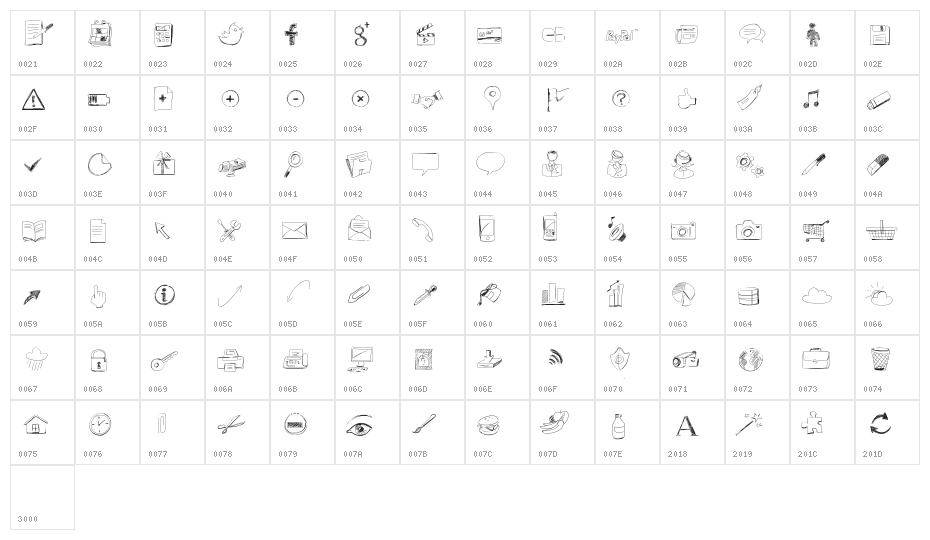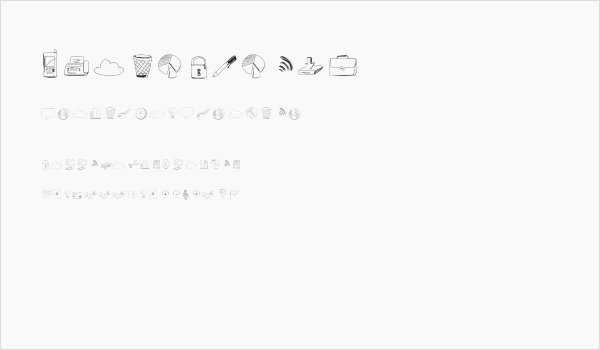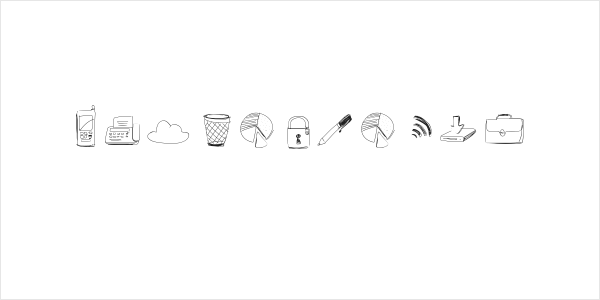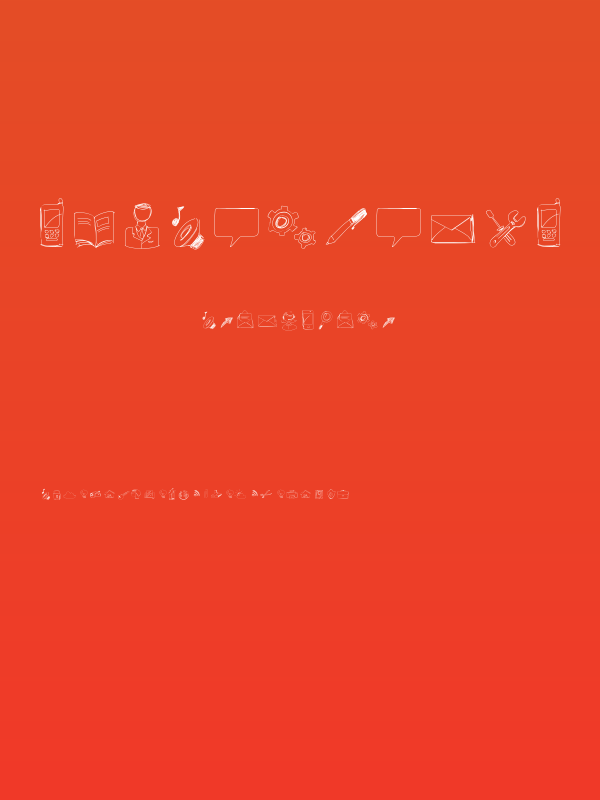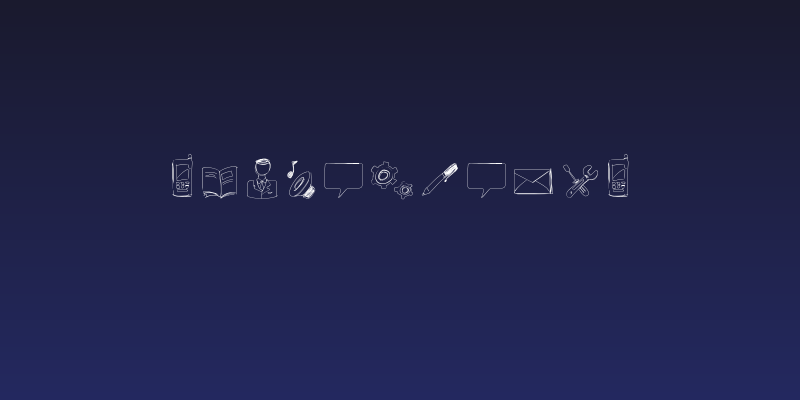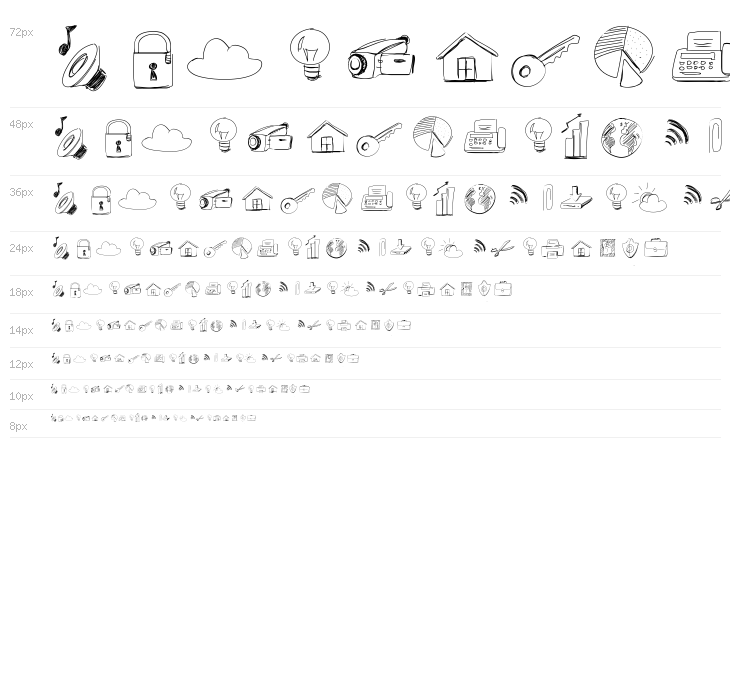
SketchIcons Font
SketchIcons Description
A collection of hand-drawn, sketch-style icons featuring various business, communication, and technology symbols. The lines are uneven and organic, giving a casual, informal appearance reminiscent of doodles or quick sketches.
| Overall Style | Decorative, Playful, Hand-drawn |
| Use Case | Icons for UI, infographics, and creative projects. |
| Proposed Projects | Creative presentations, educational materials, websites, apps, infographics, and social media graphics. |